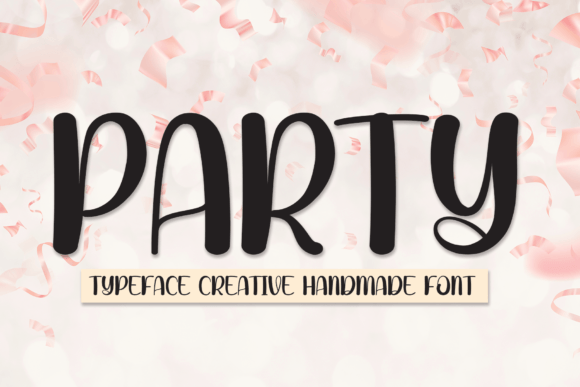
About Party Font
Party is a sweet and cheerful handwritten font that brings joy and charm to every design. With its friendly curves and relaxed feel, this typeface was created to make your text feel personal, approachable, and warm. Whether you’re crafting a wedding invitation, birthday card, or a playful social media graphic, Party Font adds a delightful touch that instantly brightens the tone of your work.
The handwritten style of Party gives it a human, down-to-earth quality that helps you connect with your audience. Its soft strokes and well-balanced letters are easy on the eyes and great for both print and digital designs.
Perfect for Joyful Occasions
If your project is about celebration, happiness, or warmth, Party is the font for you. Its versatility makes it ideal for a wide variety of creative applications:
Wedding Invitations – Add a lovely and personal flair
Greeting & Holiday Cards – Sweet messages deserve sweet fonts
Birthday Party Designs – Posters, banners, and decor items
Social Media Posts – Quotes, announcements, and captions
Baby Showers & Events – Perfect for gender reveals and new baby invites
Craft Projects – Stickers, planners, scrapbooking, and more
Branding & Logos – Especially for handmade, lifestyle, or boutique brands
Whether you’re designing for kids, families, or adults, Party fits beautifully and brings out the happy vibes in your message.
Clean, friendly handwritten script
Why Designers Love Party Font
Designers are drawn to Party because it feels genuine. It looks like it was written with joy, making it perfect for heartfelt communication. The balance between playful and polished gives it a unique flexibility—you can use it for professional designs that still feel warm and welcoming.
From elegant stationery to fun craft projects, Party adapts with ease. Its clean handwritten style makes it legible while still maintaining its personality. And since it’s PUA encoded, you can explore and apply all alternate characters without hassle.
Let your creativity shine and add a touch of joy to your next project with Party Font. It’s simple, it’s fun, and it delivers a sweet impression that your audience will love.